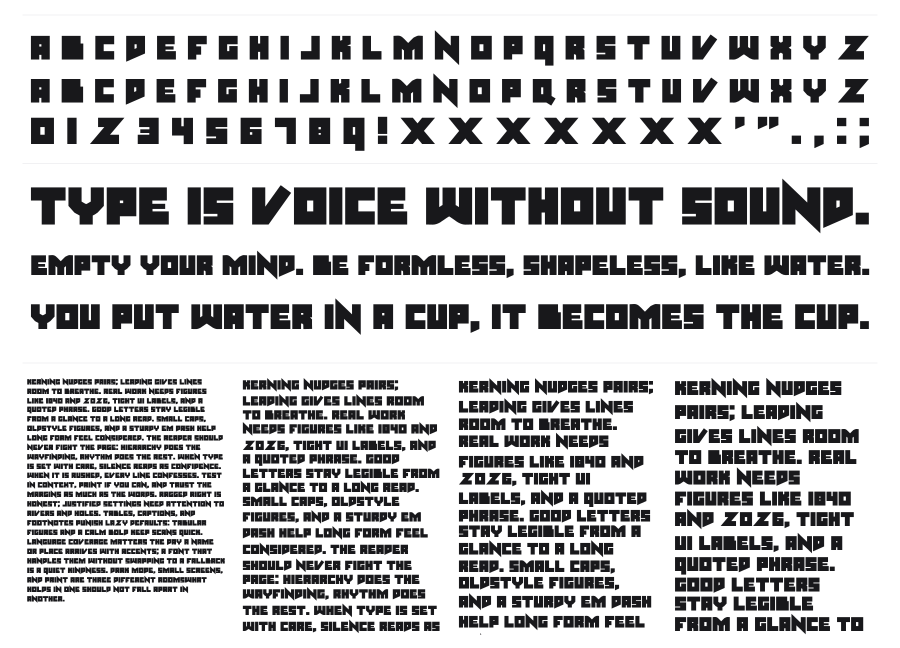
Nsteel
by hati
Nsteel is a heavy, blocky display face from hati with rigid geometric letterforms that feel like they were cut from plate steel. Everything about it reads industrial and futuristic, with minimal curves and maximum density packed into each character. Built for headlines, posters, and branding where you want raw, mechanical weight at large sizes.